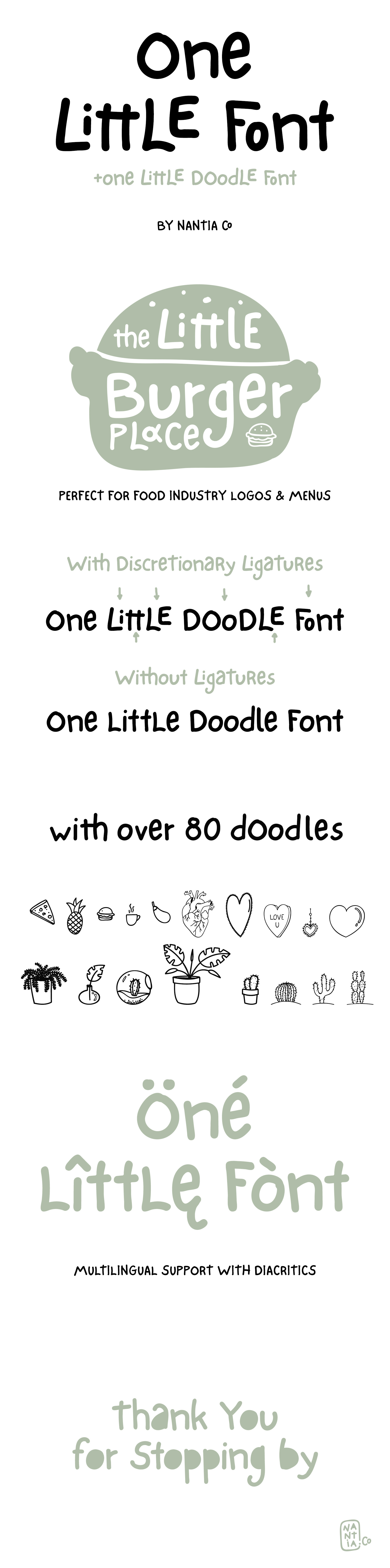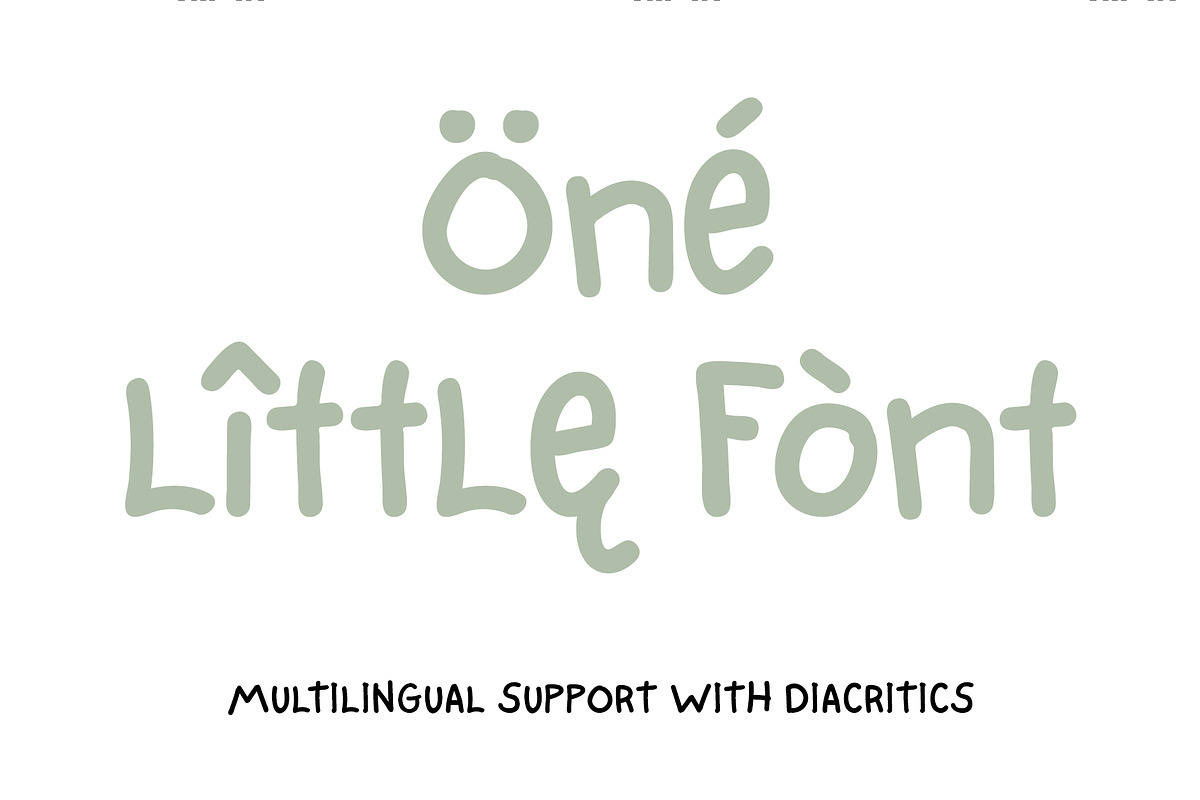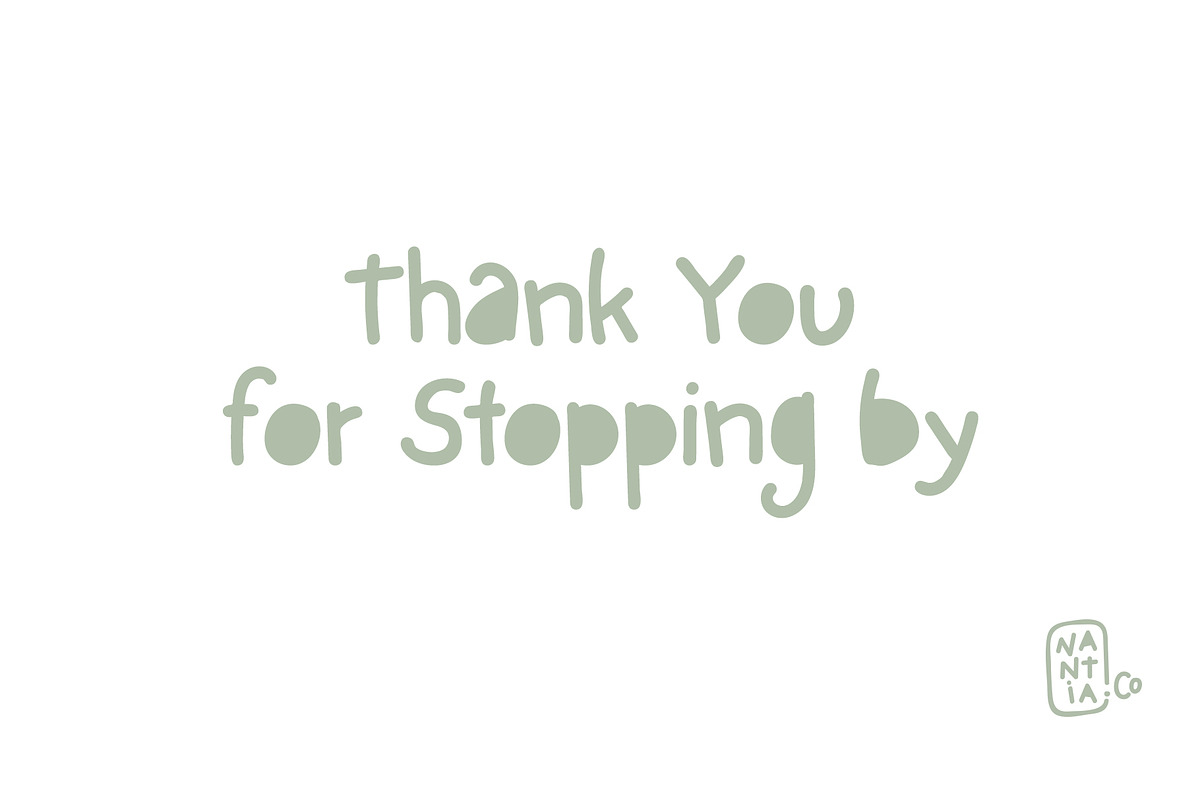
One Little Font Greek / Latin
Let me introduce you to One Little Font!
One Little Font is an adorable hand-made typeface with a lot of personality. With double letter ligatures and stylistic alternates, this One Little Font can be a mighty companion to your next graphic design project. From "hand-written" quotes to product packaging, merchandise, and branding projects, this One Little Font is so versatile that it can cover them all.
Yes! The lettering from my doodle series "10 Little Doodles" has now been turned into an adorable typeface. And now I have turned doodle icons into a PUA Font, the One Little Doodle Font.
One Little Font in two weights
- Extended Latin Characters
- Greek Characters
One Little Doodle Font
- 80+ doodle icons in PUA font.
One Little Font is a Greek font and an Extended Latin Font and that makes it a multilingual font. You can check that on the test drive below.